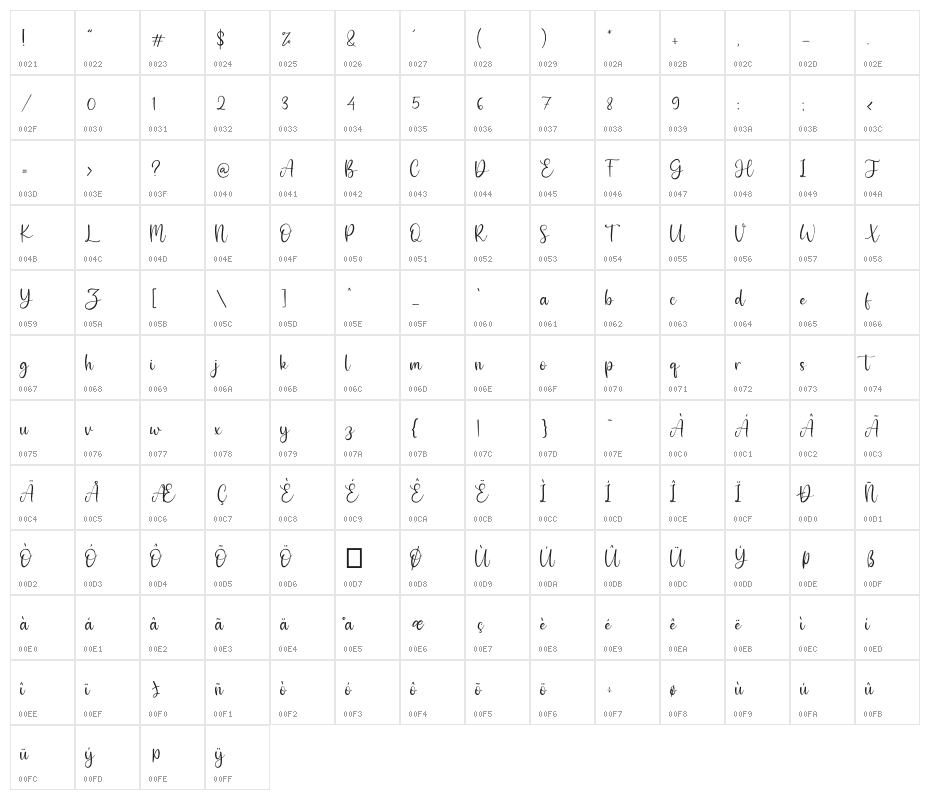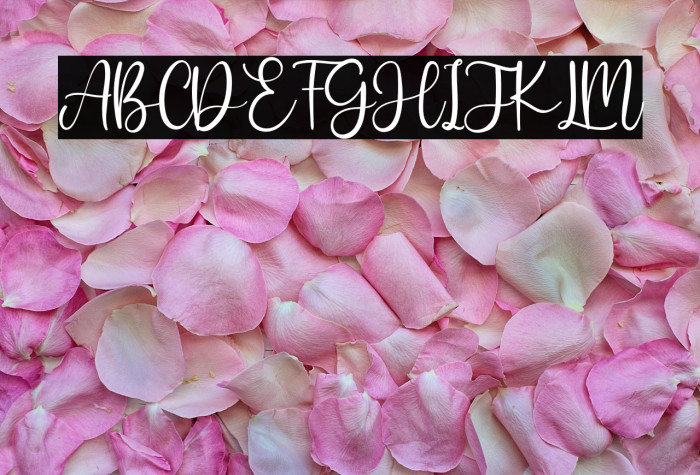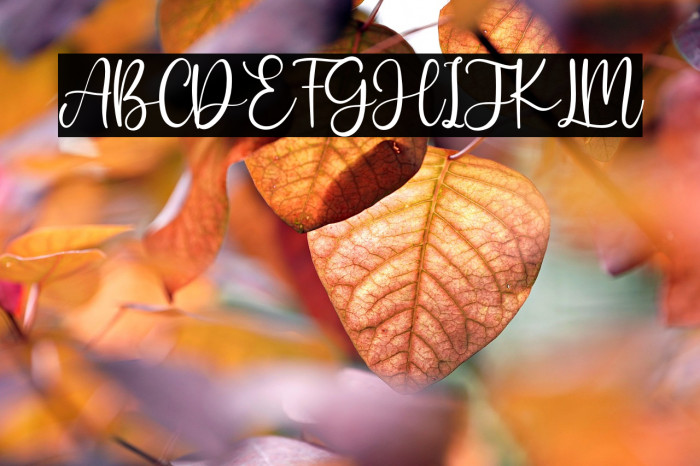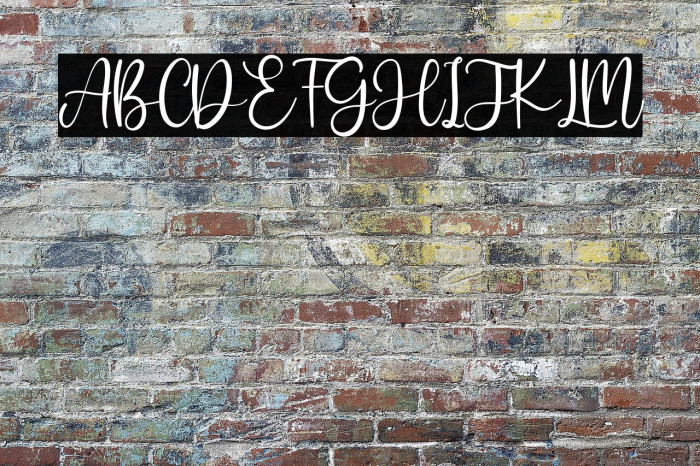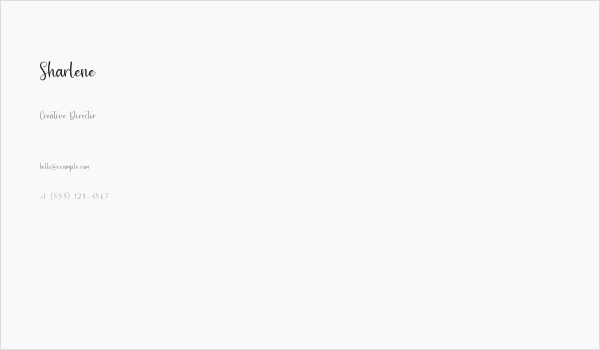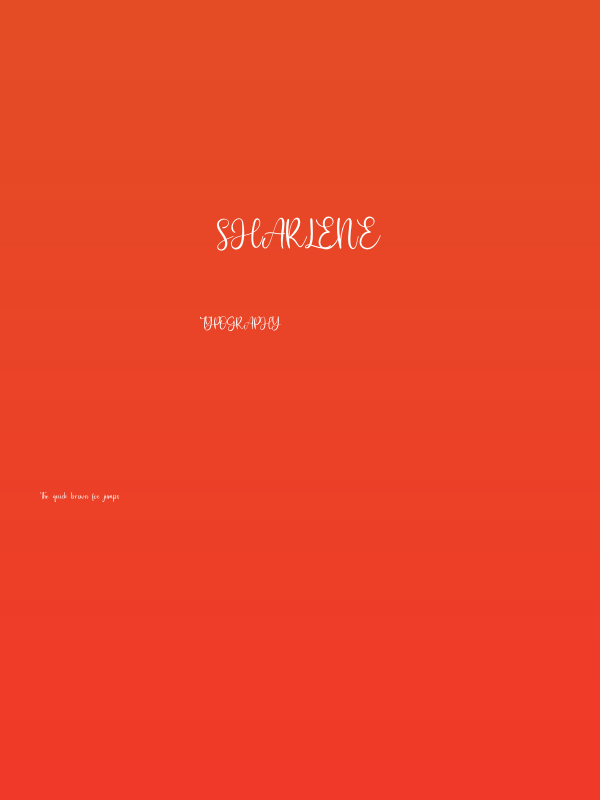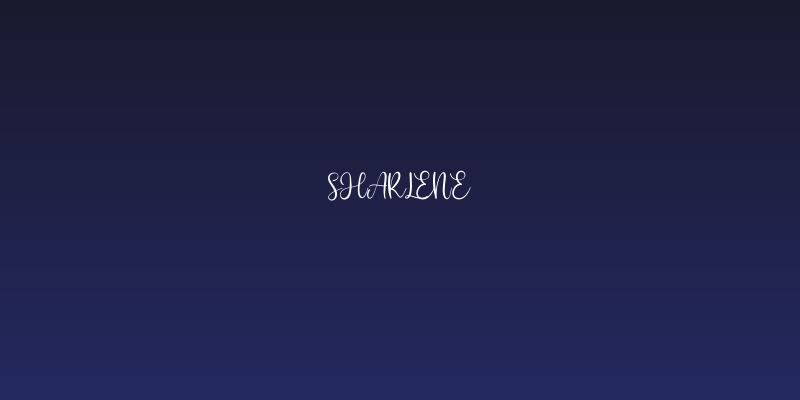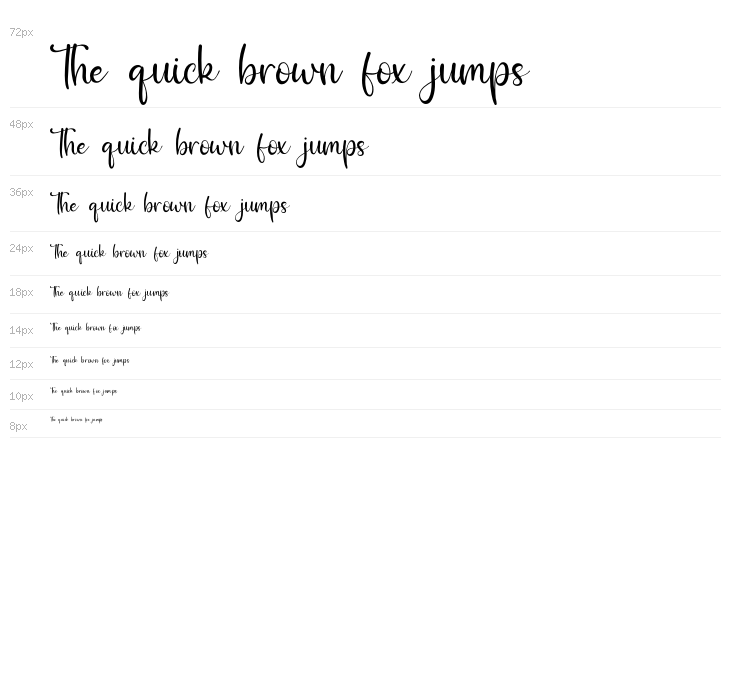
Sharlene Font
Sharlene Description
This font features a playful and elegant script style with a handwritten appearance. The characters are fluid and connected, giving a sense of movement and grace. The uppercase letters are slightly more ornate, with flourishes that add a touch of sophistication. The lowercase letters maintain a consistent flow, enhancing readability while retaining a stylish flair. The numerals are clear and distinct, complementing the overall aesthetic. Special characters are thoughtfully designed to match the script's elegance, making this font versatile for various creative applications.
Overall StyleElegant, Playful
Use CaseHeadlines, Logos, Invitations
Proposed ProjectsIdeal for wedding invitations, greeting cards, branding, and social media graphics.